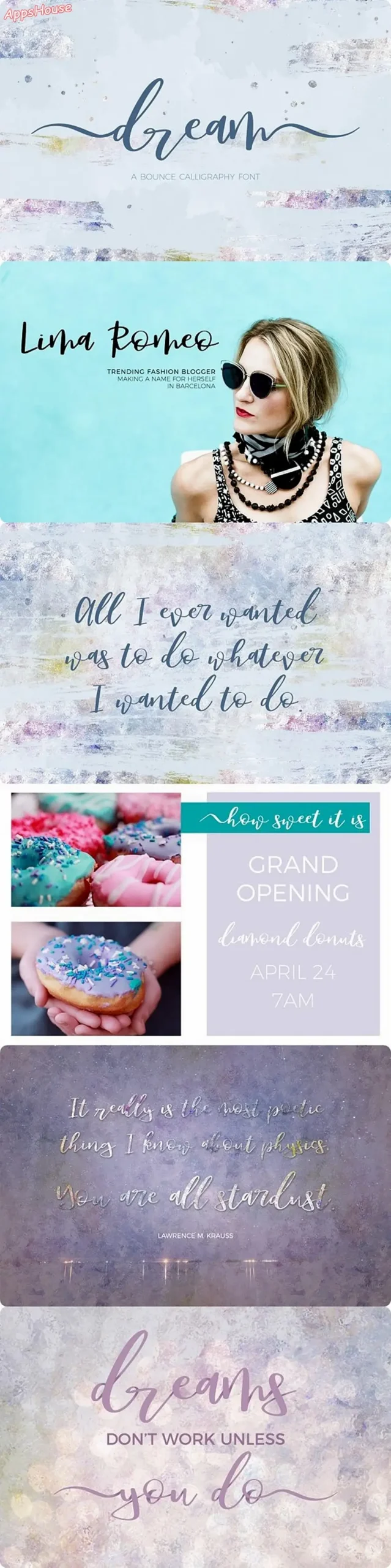
Dream Bounce Calligraphy Font
Introducing the Dream Bounce Calligraphy Font, a beautifully crafted typeface that combines elegance with a playful touch. This font is perfect for adding a personal and artistic flair to your projects.
• Stylish calligraphy design
• Easy to read at various sizes
• Ideal for branding, invitations, and logos
• Perfect for web design and print materials
• Use in UI design for a unique touch